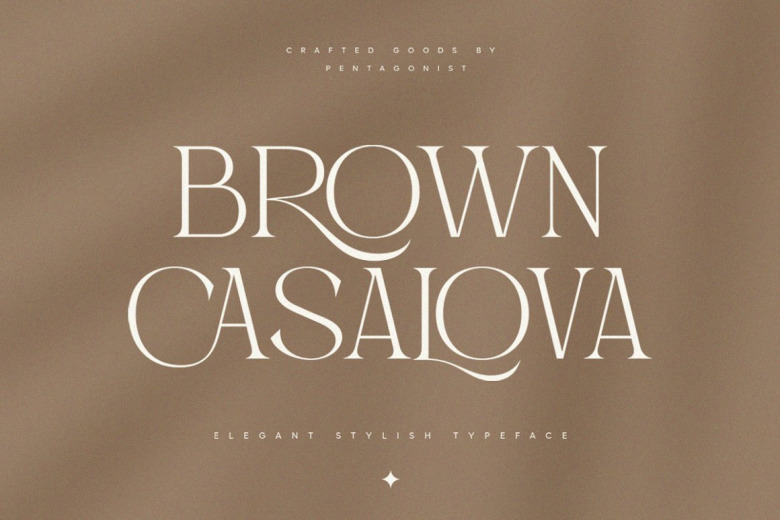
Brown Casalova Font
A stylish and elegant serif font, Brown Casalova Best for amazing designs, perfect for eye-catching logos branding and quotes All the letters have a special and beautiful style that your design will absorb from it for sure! PUA encoded – Working great on a silhouette or Cricut machine and access all of the amazing glyphs… (Multilingual characters will be supported soon…).
Brown Casalova Serif Font